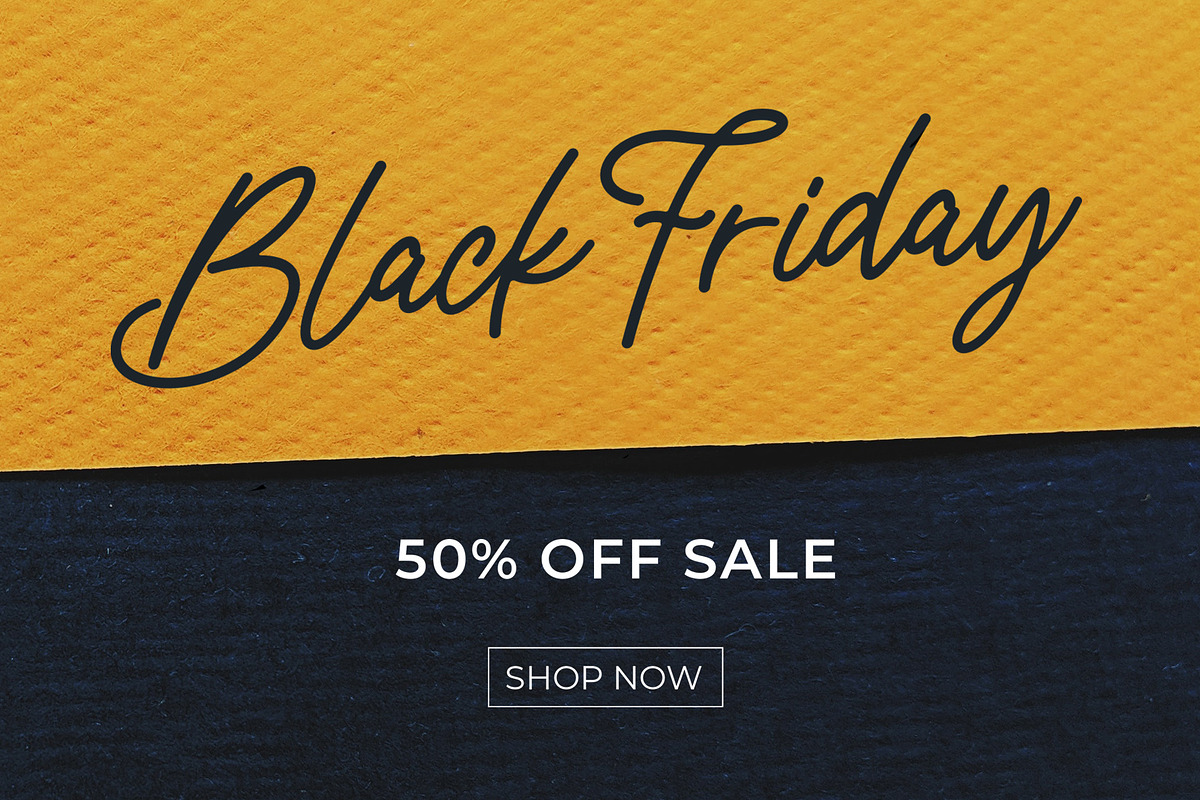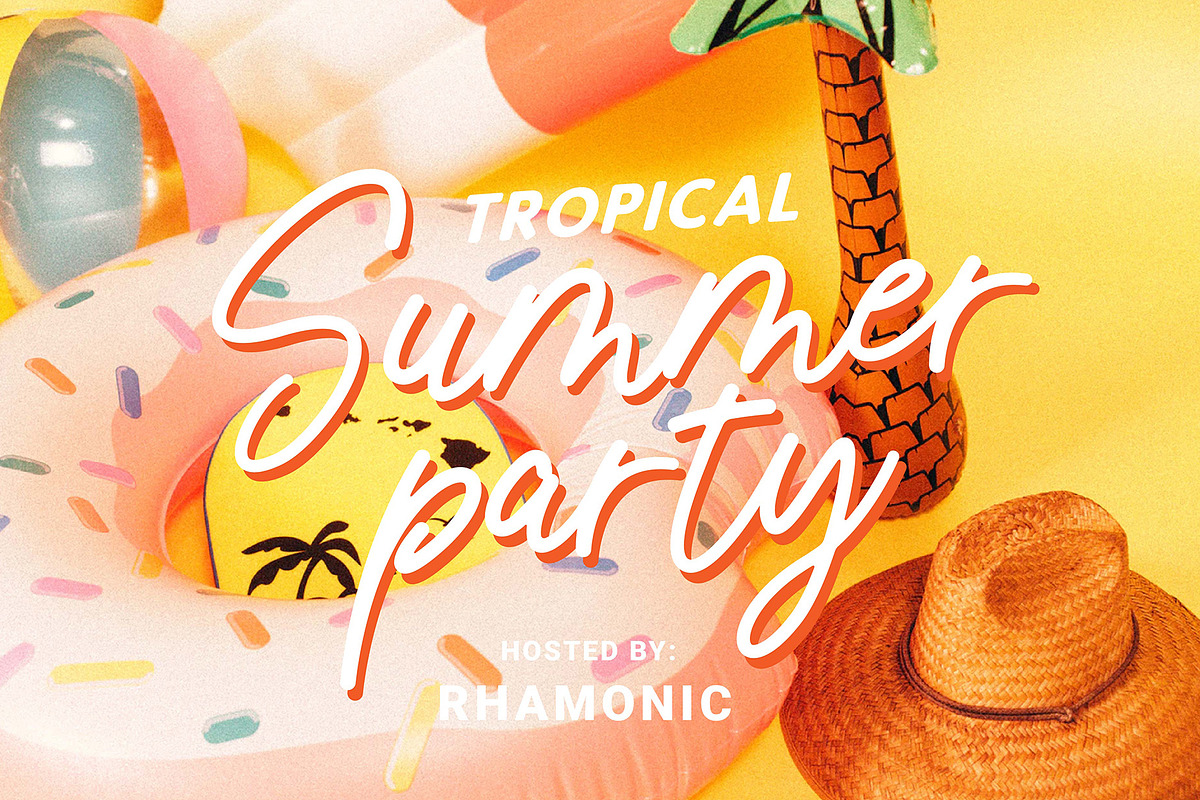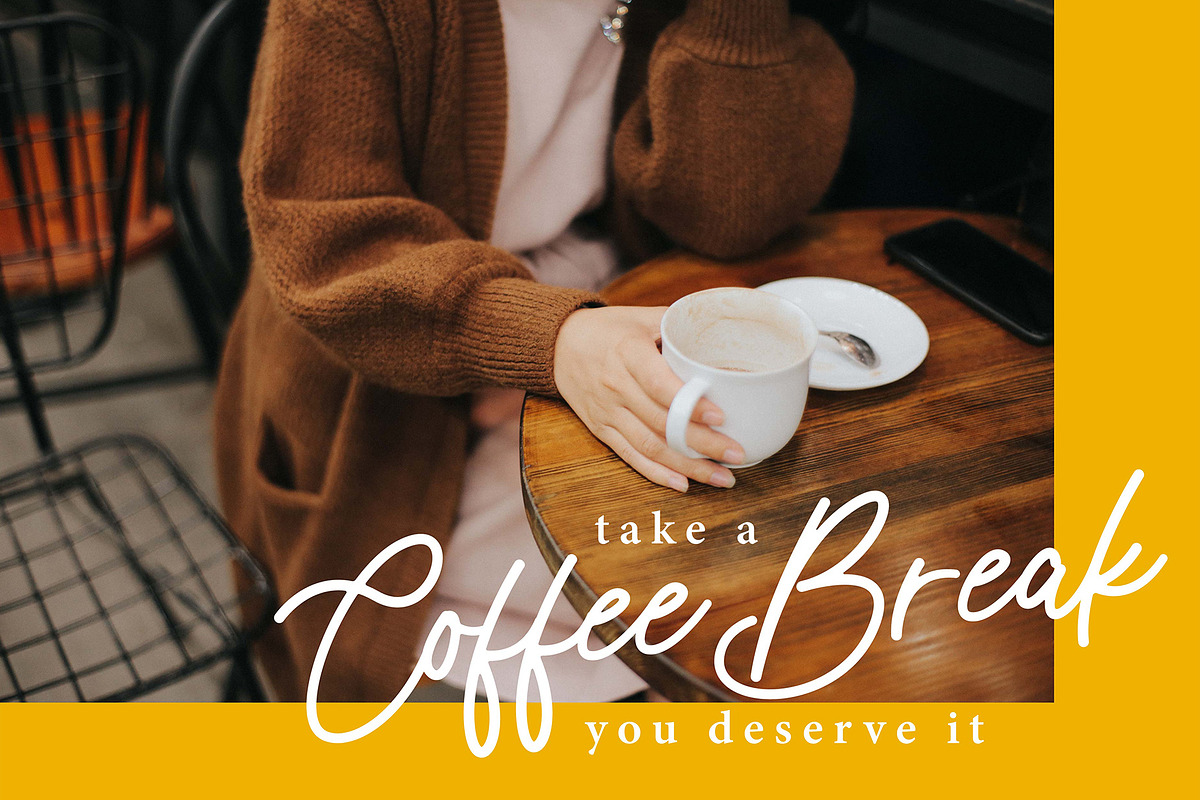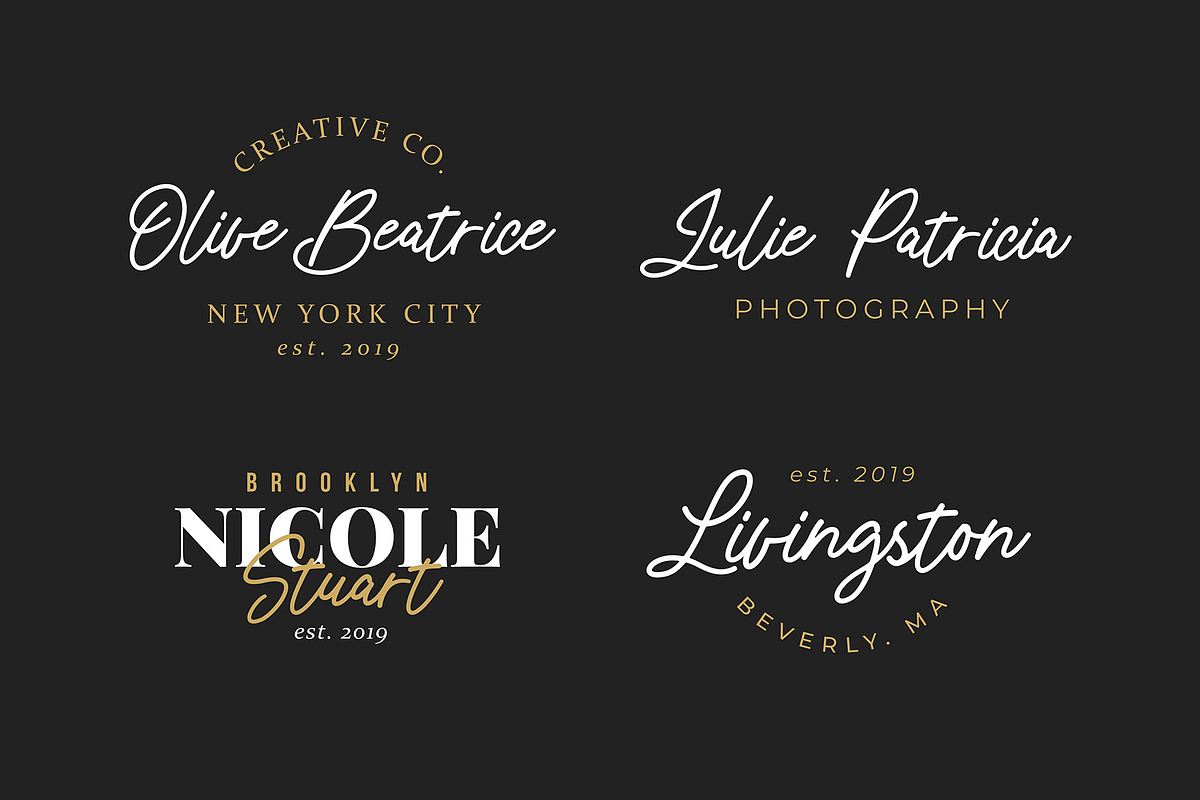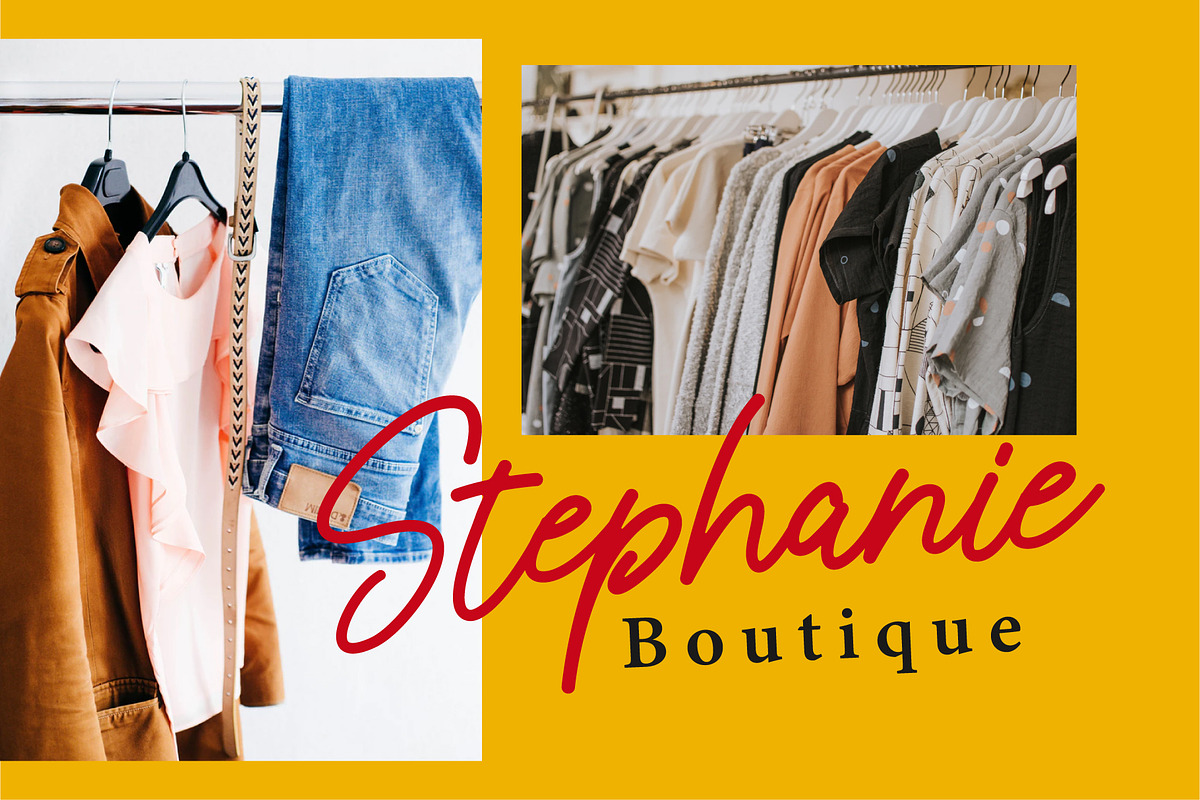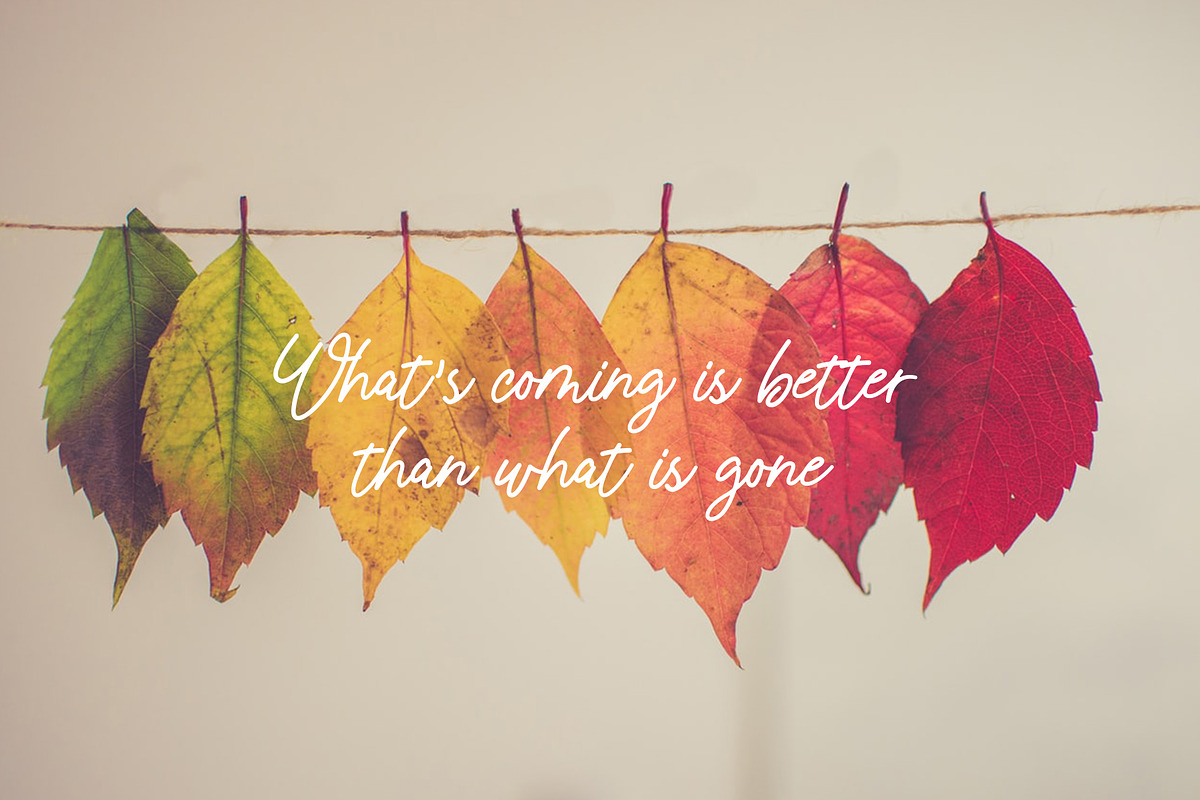
Rhamonic handwritten font
Rhamonic a stylish handwritten font that will give instant flair to your designs. Rhamonic is a messy, feminine, carefree script that is perfect for logos, posters, signage, and more!
Why Rhamonic handwritten font is worth a look
Rhamonic handwritten font by sancreastd. fits naturally into Branding, posters, packaging, typography.